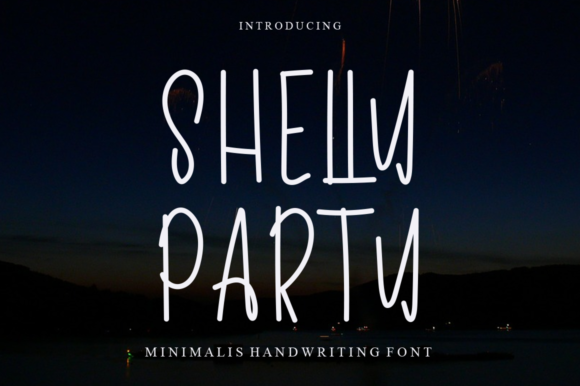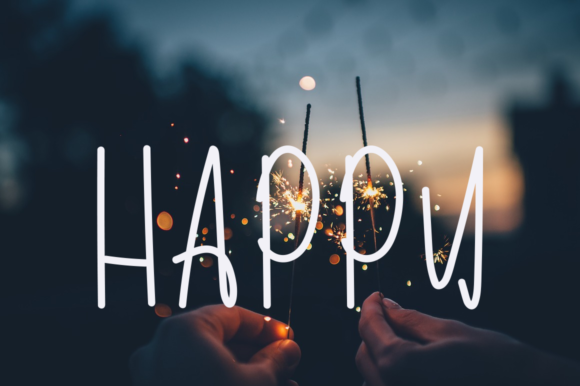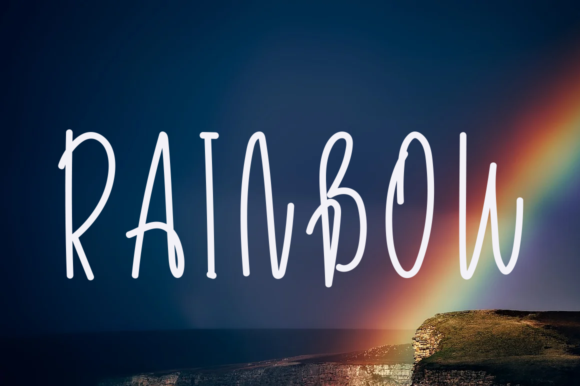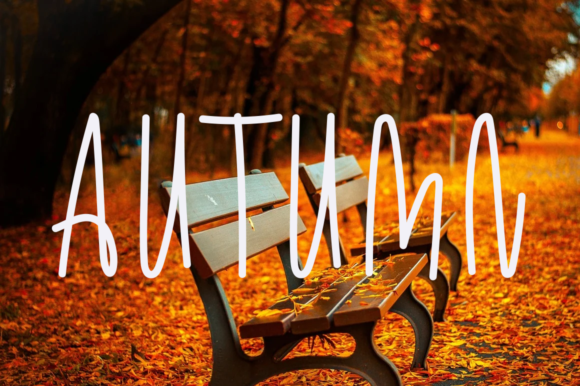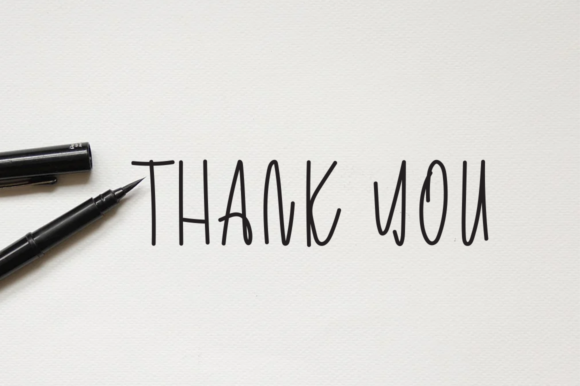
Shelly Party Font
About Shelly Party Font
Shelly Party is a thin, quirky and friendly handwritten font. This gentle font will look gorgeous on a variety of design ideas. It will add a joyful and romantic touch to each of your projects!